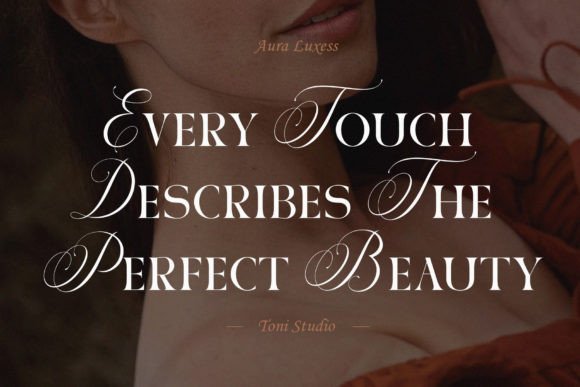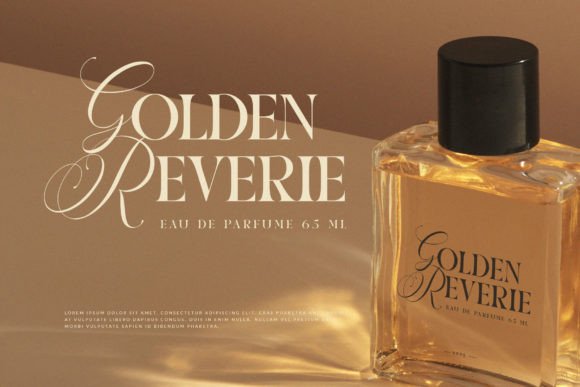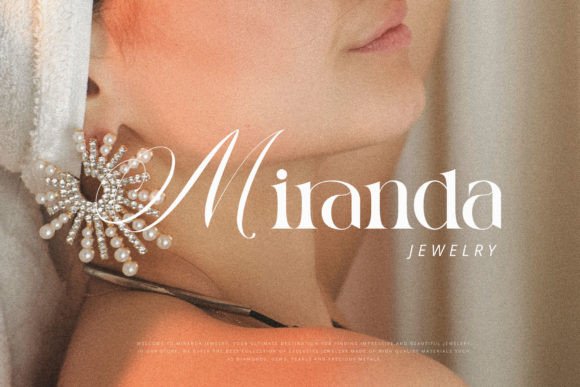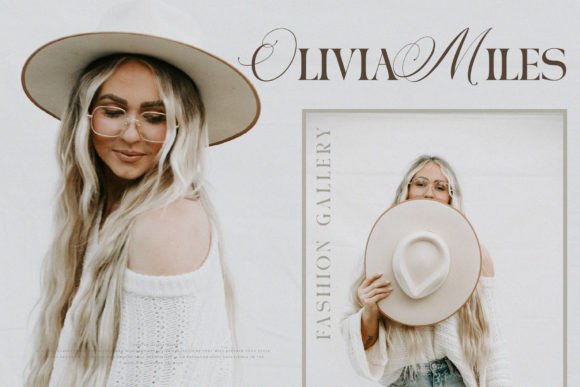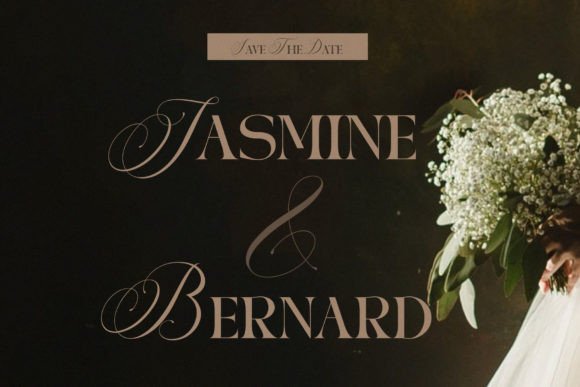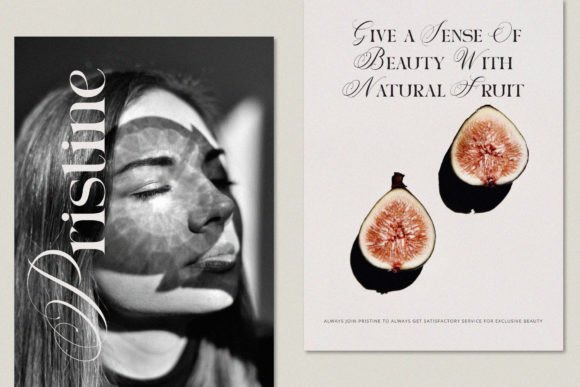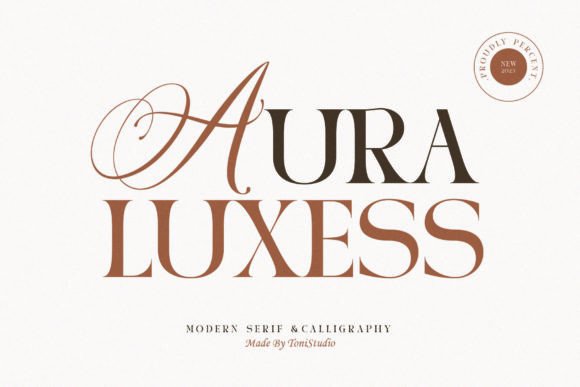
Aura Luxess Duo Font: Elevate Your Designs with Elegance and Luxury
In the world of typography, a well-crafted font duo can make all the difference in elevating a design project from ordinary to extraordinary. Introducing Aura Luxess, a captivating font duo that seamlessly blends elegance and luxury, perfect for designers and crafters seeking to add a touch of sophistication to their work.
The Perfect Blend of Elegance and Luxury
Aura Luxess is a thoughtfully designed font duo that consists of two complementary fonts: a serif font and a script font. The serif font embodies timeless sophistication with its clean lines, refined details, and classic aesthetic. Its elegant appearance makes it perfect for designs that require a sense of luxury and refinement, such as high-end branding, formal invitations, and editorial designs.
On the other hand, the script font adds a touch of handcrafted beauty and versatility to the duo. With its flowing curves and dynamic strokes, this font is ideal for adding a personal touch to designs, such as wedding invitations, event branding, and packaging. The script font’s unique character injects a sense of personality and whimsy into any project, making it a versatile addition to the Aura Luxess duo.
Key Features of Aura Luxess Duo Font
- Timeless Sophistication: The serif font’s classic design ensures that your projects exude elegance and refinement.
- Handcrafted Beauty: The script font’s unique character adds a personal touch to your designs, making them stand out from the crowd.
- Versatility: The Aura Luxess duo is perfect for a wide range of design applications, from branding and invitations to editorial designs and packaging.
- Seamless Blending: The two fonts work harmoniously together, allowing you to mix and match them to create visually stunning designs.
Applications of Aura Luxess Duo Font
Aura Luxess is an incredibly versatile font duo that can be used in various design applications, including:
- Branding: Create a lasting impression with Aura Luxess’s elegant serif font, perfect for luxury brands, high-end products, and services.
- Invitations: Add a touch of sophistication to your wedding invitations, event invitations, or party invites with the Aura Luxess duo.
- Editorial Designs: Elevate your editorial designs, such as magazines, newspapers, and blogs, with the classic aesthetic of the serif font.
- Packaging: Make your products stand out with the unique character of the script font, perfect for product labels, packaging, and more.
Why Choose Aura Luxess Duo Font?
In a world where typography plays a crucial role in design, Aura Luxess offers a unique combination of elegance, luxury, and versatility. Here are just a few reasons why designers and crafters should choose Aura Luxess:
- Exquisite Style: Aura Luxess radiates an aura of exquisite style, elevating any project to new levels of elegance.
- High-Quality Design: The font duo is crafted with attention to detail, ensuring a high-quality design that will make your projects stand out.
Aura Luxess Duo Font is a game-changer for designers and crafters seeking to add a touch of elegance and luxury to their work. With its perfect blend of timeless sophistication and handcrafted beauty, this font duo is sure to elevate any design project to new heights. Whether you’re working on branding, invitations, editorial designs, or packaging, Aura Luxess is the perfect choice for those who demand exquisite style and versatility.